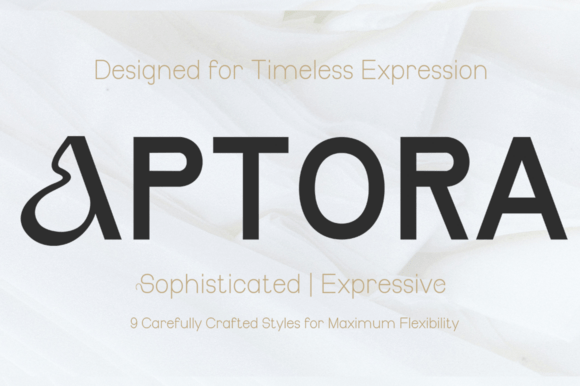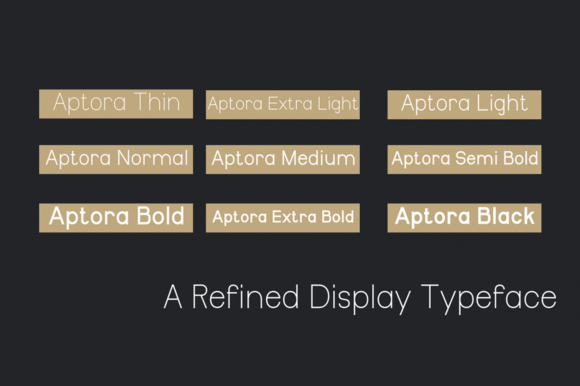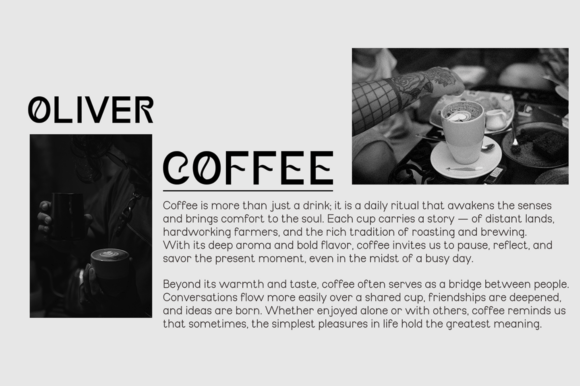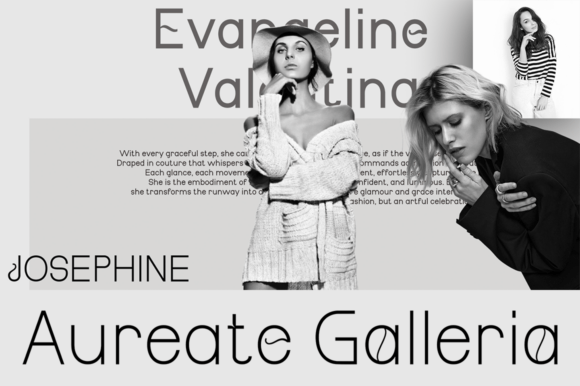
Aptora Font
About the Aptora Font
Let us introduce you to Aptora Font, where timeless design meets modern craftsmanship. Aptora is a modern display typeface crafted for timeless expression. Featuring clean, elegant lines and exceptional versatility, Aptora comes in 9 carefully designed weights — from Thin to Black — offering maximum flexibility for a wide range of creative needs.
Perfect for branding, editorial layouts, posters, digital applications, and projects that demand a sophisticated and expressive touch, Aptora delivers a refined look without sacrificing personality.
Aptora’s strong, yet refined forms make it ideal for headlines, logos, and short-form text in branding projects requiring a sophisticated yet approachable feel. It excels in posters and packaging where its elegant weight range allows for impactful hierarchy. However, its display nature makes it less suitable for body copy or UI elements demanding high readability in long blocks of text.
Consider pairing Aptora with a clean sans-serif like Lato for a balanced contrast in a modern context, or a classic serif like Garamond for a touch of traditional elegance. For a more playful feel, a handwritten script such as Great Vibes can complement its clean lines.
Aptora projects an air of confident modernity; it’s bold yet versatile, lending itself to brands seeking a timeless yet contemporary image.